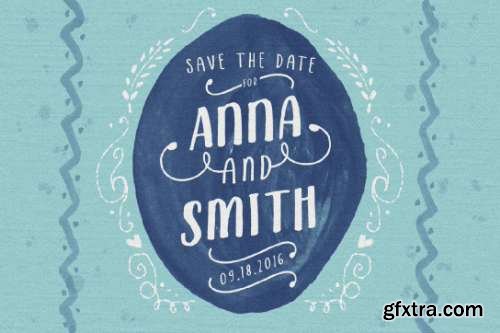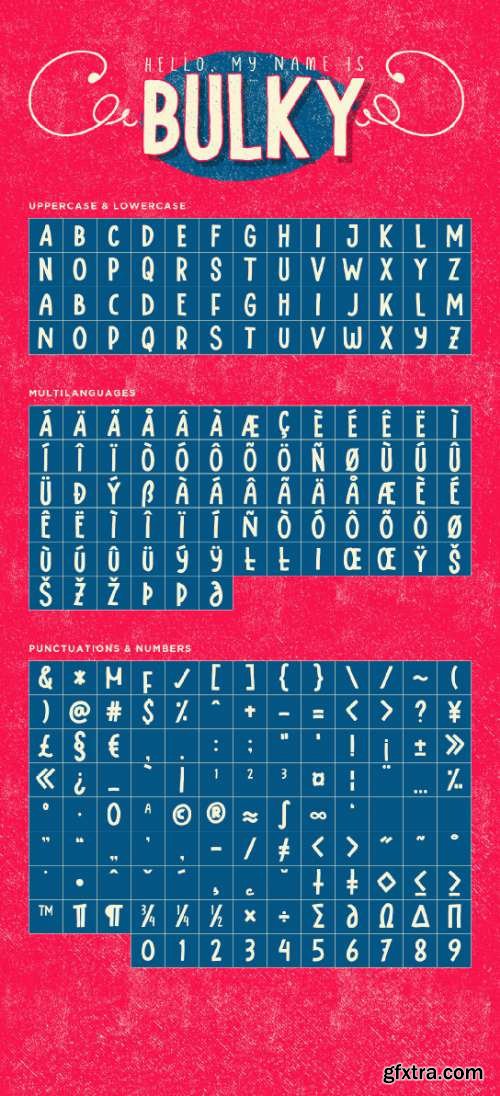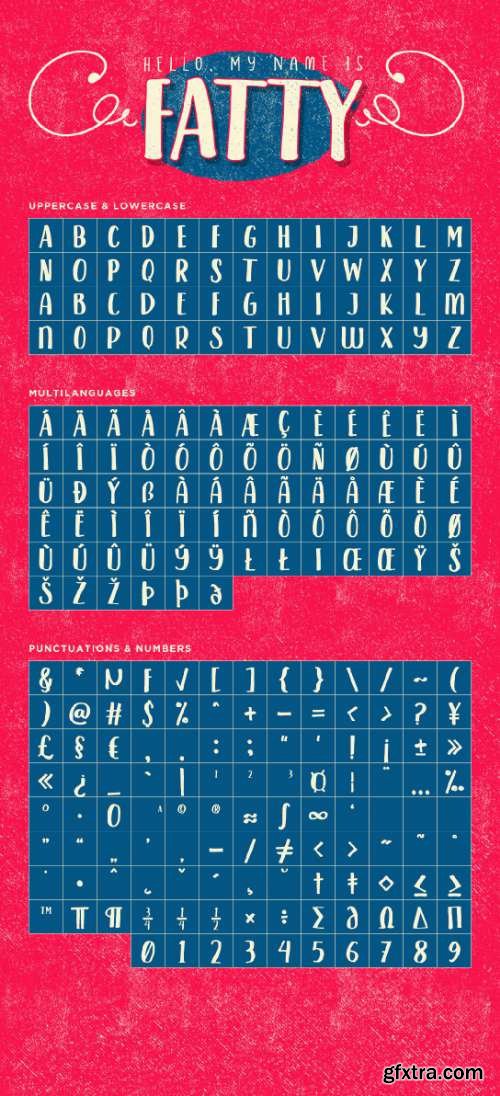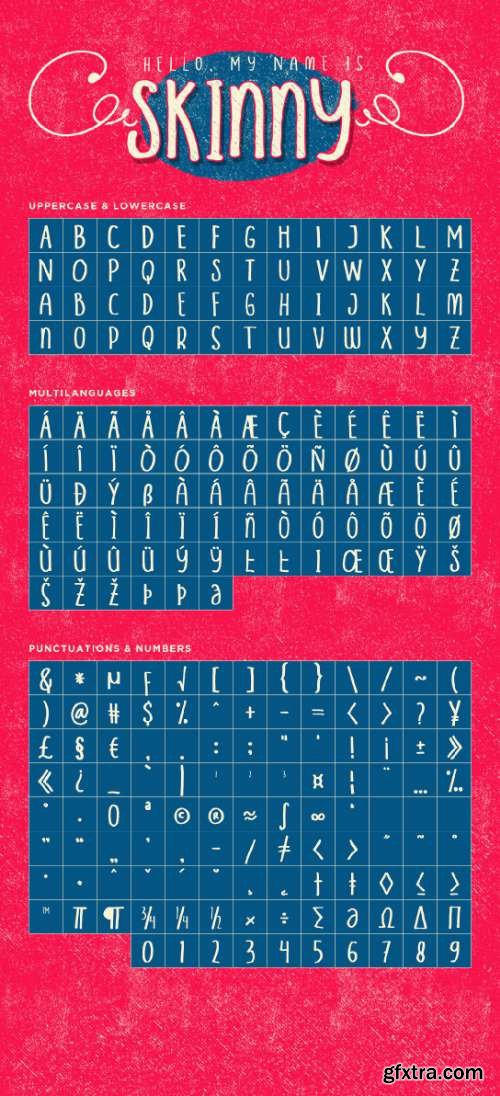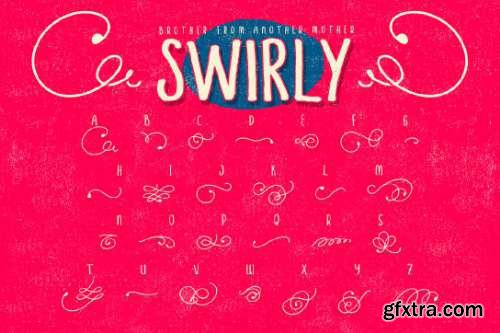
CreativeMarket The Triplets - Font Trio 628010
Howdy! Here we come! Introducing The Triplets - Font Trio a 3+1 all caps sans serif family fonts with swirls. Inspired from old beverage packaging and vintage cartoon movie posters. Its all 100% hand-drawn so you don't need to worry about the authenticity of the handmade-vintage-letteringy stuff if you use this babies in your design ;) CONTENTS The Triplets - Bulky is a bold square hand-drawn sans serif, perfect for the header, title, punchline, for your layout design, contains Uppercase, Lowercase, Numbers, Multilingual and Punctuations. Comes out in TTF and OTF files. The Triplets - Fatty is a simulation of brush-pen lettering with thick and thin implementation but still its a sans serif game. perfect for the sub-header, intro to your contents, put it under The Triplets - Bulky and you're good to go. Contains Uppercase, Lowercase, Numbers, Multilingual and Punctuations. Comes out in TTF and OTF files. The Triplets - Skinny is a monoline standard marker writing sans serif type, perfect for your content, or you can mix it up with The Triplets - Fatty to get a different vibes, softer when the Bulky one wasn't there. Contains Uppercase, Lowercase, Numbers, Multilingual and Punctuations. Comes out in TTF and OTF files.